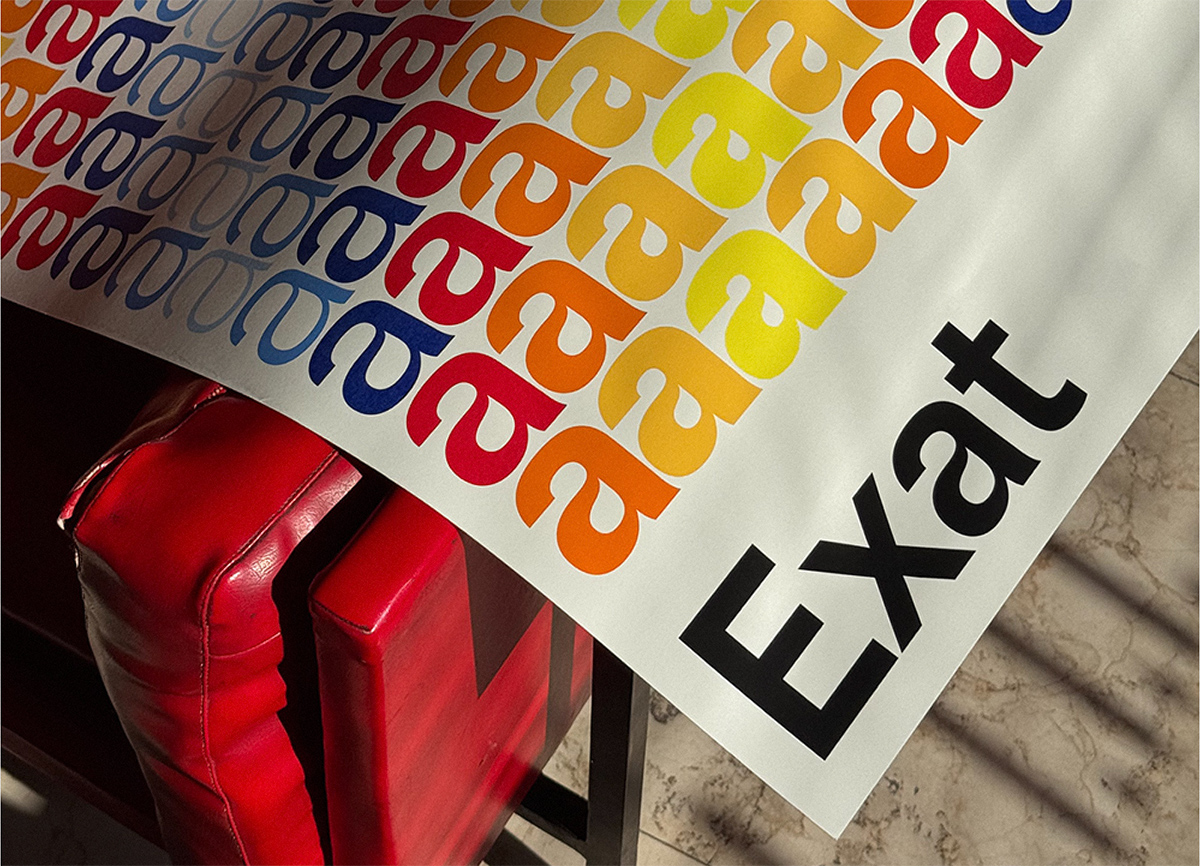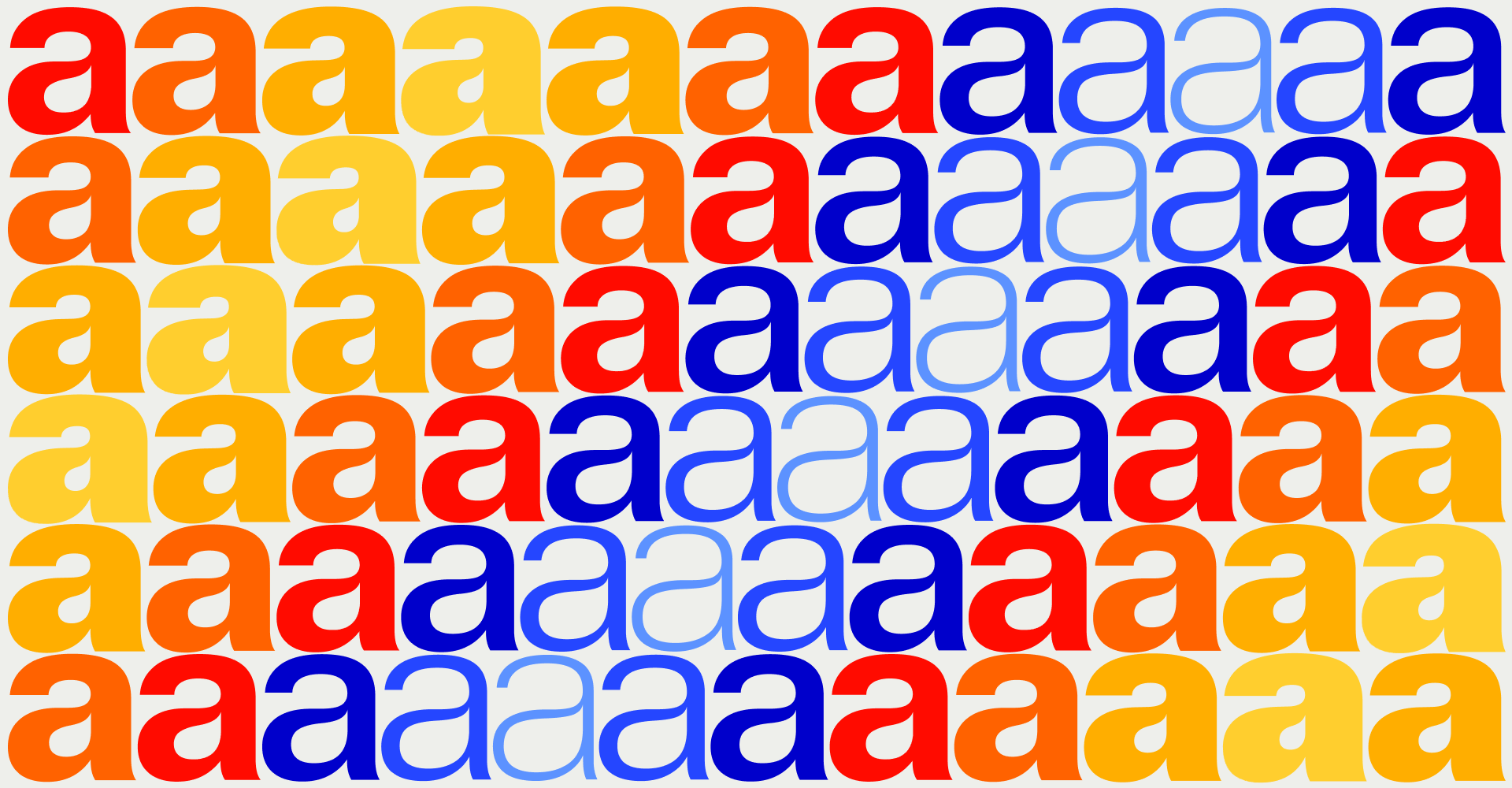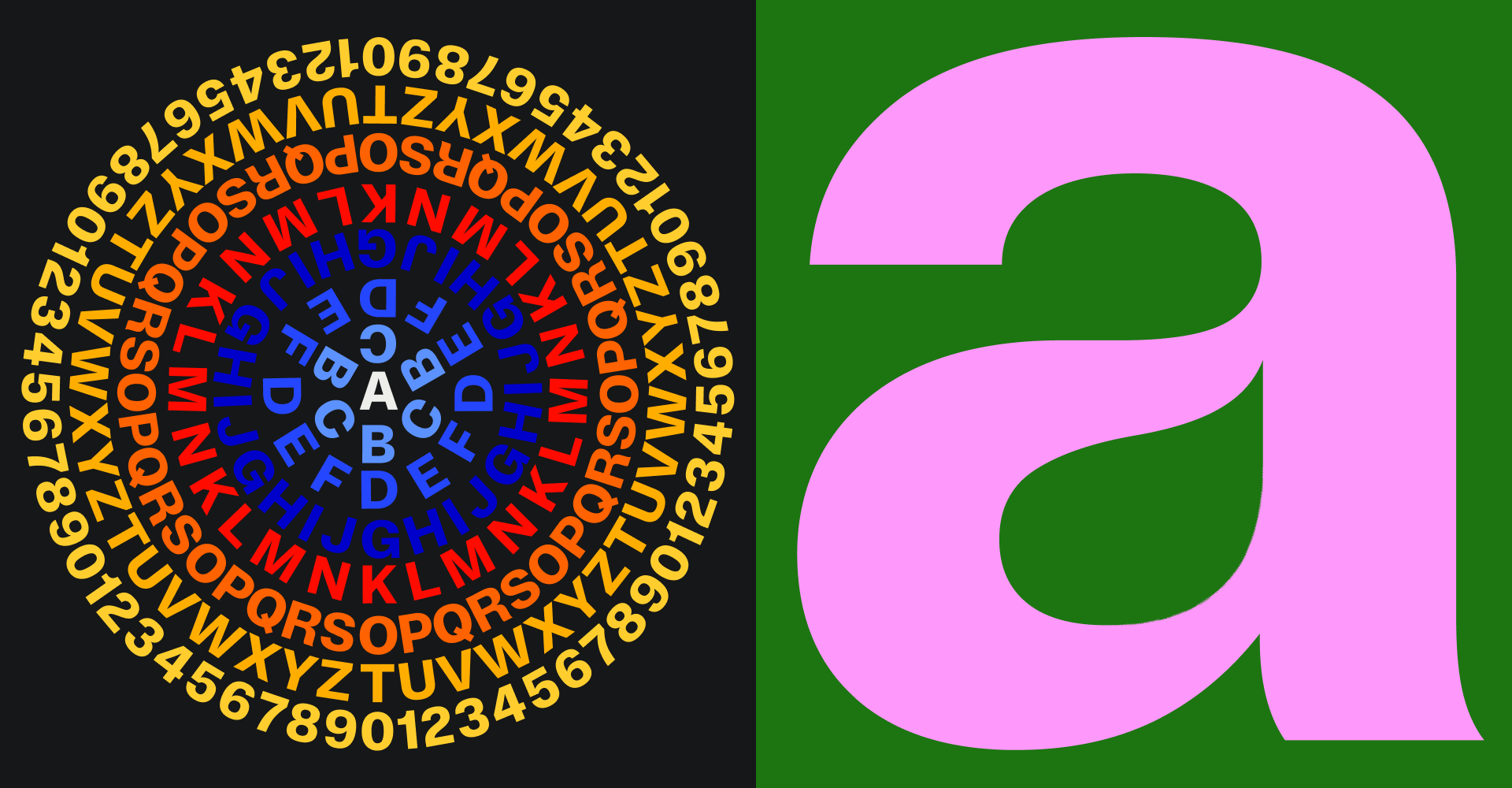
Inspired by EXAT 51’s artistic and architectural endeavors, this typeface features clean lines and structural clarity. The Exat typeface captures the very essence of modernist ideas, striking a harmonious balance between form and function. Exat is inarguably our most ambitious release yet, offering the user total control in choosing the right type—fit for any situation. Visit Exat microsite for full experience.
Type design: Mihael Šandro & Marko Hrastovec
Font mastering: Guido Ferreyra